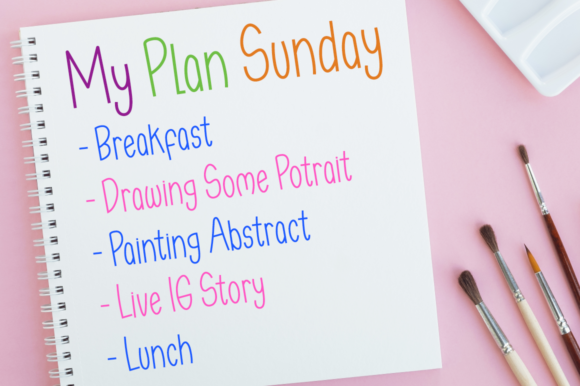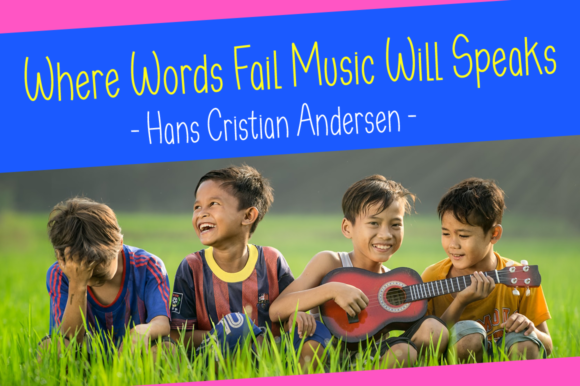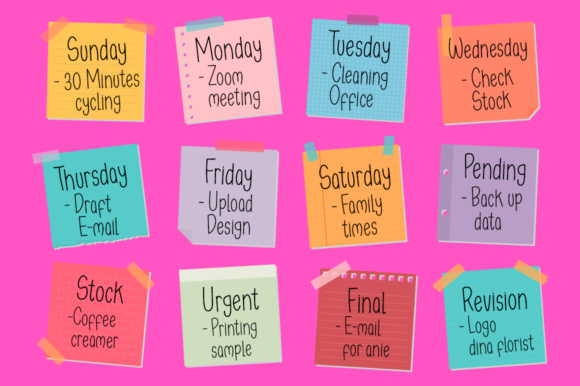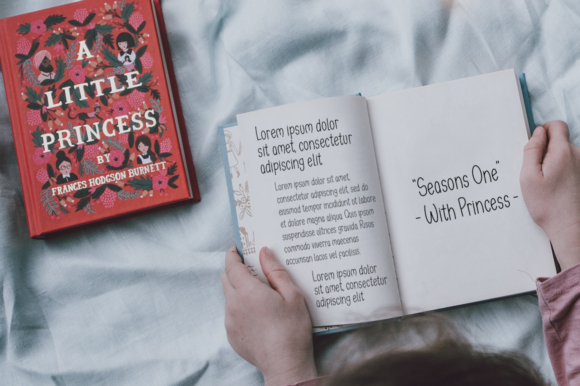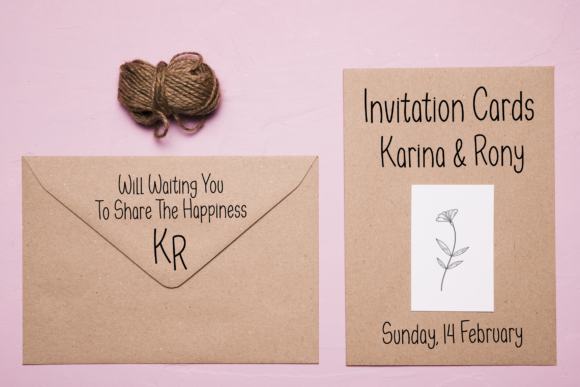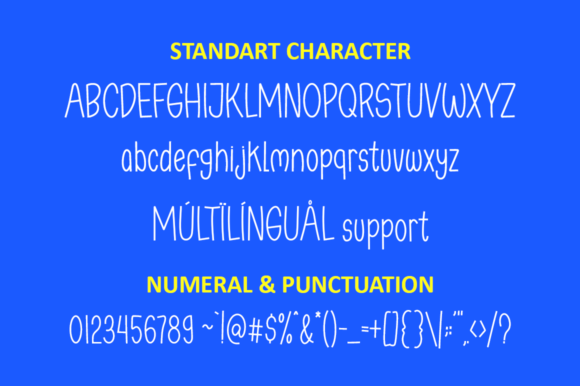
Crafty Notes Font: Elevate Your Designs with a Touch of Handwritten Charm
In the world of design, fonts play a crucial role in conveying messages, evoking emotions, and setting the tone for a brand or project. For crafters, designers, and DIY enthusiasts, finding the perfect font can be a game-changer. That’s where Crafty Notes Font comes in – a clean, thin, and simple handwritten font that has captured the hearts of many. In this article, we’ll dive into the world of Crafty Notes Font, exploring its unique features, versatility, and the endless possibilities it offers for your designs.
The Beauty of Crafty Notes Font
Crafty Notes Font is a clean, thin, and simple handwritten font that boasts a natural and unique style. Its elegance lies in its subtlety, making it incredibly fitting for a wide range of designs. Whether you’re working on a project for a client or creating something for personal use, Crafty Notes Font is sure to impress. The font’s simplicity and readability make it perfect for body text, while its unique charm adds a touch of personality to headings and titles.
Endless Possibilities
The only limit to using Crafty Notes Font is your imagination! This versatile font can be used in various design projects, including:
- Branding and Packaging: Add a personal touch to your brand’s identity with Crafty Notes Font. Use it for logos, labels, or packaging designs to create a unique and memorable brand image.
- Stationery and Invitations: Create beautiful stationery, invitations, and greeting cards with Crafty Notes Font. Its elegant and simple design makes it perfect for formal and informal events.
- Digital and Print Media: Use Crafty Notes Font in digital and print media, such as blog posts, social media graphics, and flyers. Its clean and readable design ensures that your message gets across effectively.
- Crafting and DIY Projects: Add a touch of personality to your crafting and DIY projects, such as handmade cards, scrapbooking, and journaling.
Why Choose Crafty Notes Font?
So, what sets Crafty Notes Font apart from other fonts? Here are a few reasons why designers and crafters love this font:
- Unique and Handwritten: Crafty Notes Font has a distinct handwritten feel that adds a touch of personality to any design.
- Clean and Thin: The font’s clean and thin design makes it perfect for body text and ensures that your message gets across clearly.
- Simple and Versatile: Crafty Notes Font is incredibly versatile and can be used in various design projects, from formal to informal.
- Easy to Read: The font’s simplicity and readability make it perfect for long blocks of text.
Tips and Tricks for Using Crafty Notes Font
To get the most out of Crafty Notes Font, here are a few tips and tricks:
- Experiment with Colors: Pair Crafty Notes Font with bold and bright colors to add a pop of personality to your design.
- Mix and Match: Combine Crafty Notes Font with other fonts to create a unique and eye-catching design.
- Play with Sizes: Use different font sizes to create visual hierarchy and add emphasis to important text.
- Add Decorations: Add decorations, such as lines, shapes, or icons, to enhance the design and add a touch of whimsy.
Crafty Notes Font is a versatile and beautiful handwritten font that offers endless possibilities for designers and crafters. Its unique style, simplicity, and readability make it perfect for a wide range of design projects. Whether you’re a seasoned designer or a DIY enthusiast, Crafty Notes Font is sure to inspire and elevate your designs. So, what are you waiting for? Get creative and explore the world of Crafty Notes Font today!